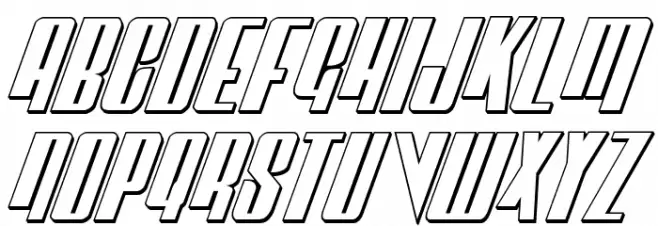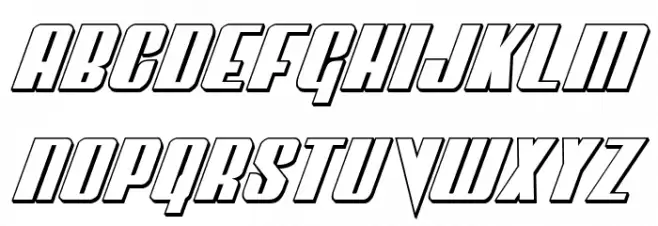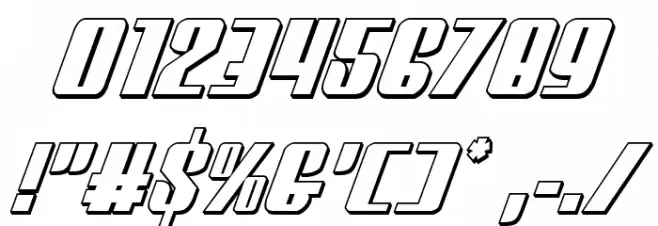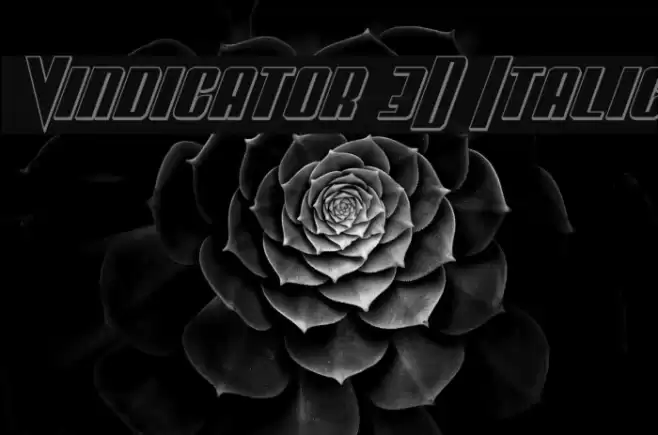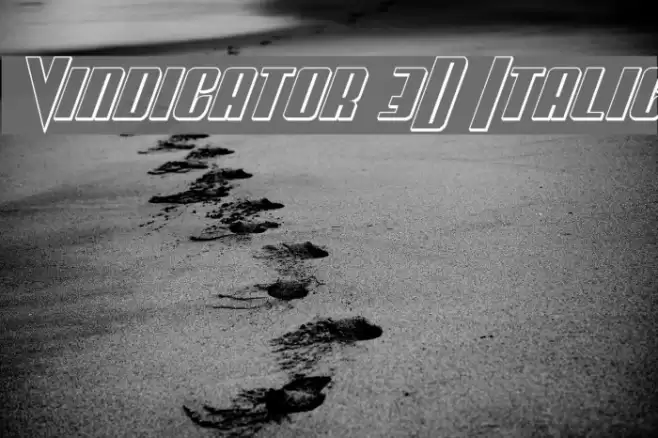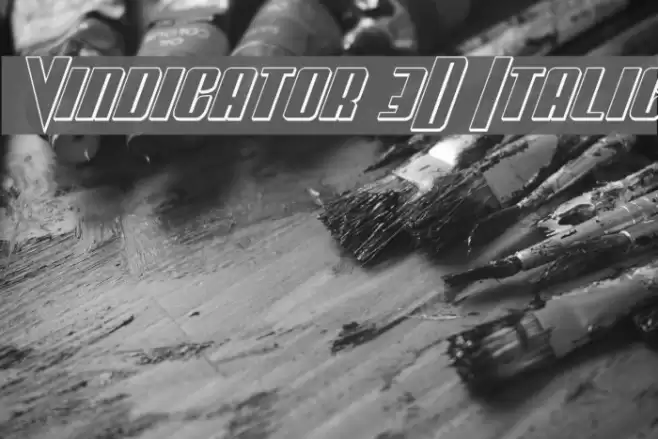
Vindicator 3D Italic
This font features a bold, three-dimensional design with an italic slant, giving it a dynamic and futuristic appearance. The characters are outlined, creating a hollow effect that enhances the 3D illusion. The angular and geometric shapes of the letters contribute to a modern and edgy style, making it stand out in any design. The uppercase and lowercase letters maintain a consistent style, with sharp edges and a uniform width. The numbers and special characters follow the same design principles, ensuring a cohesive look across all elements.
A bold, 3D italic font with a futuristic and dynamic style.
- Proposed Projects: Ideal for sci-fi themed projects, video game titles, posters, and branding that requires a modern and edgy look.
- Contrast: High